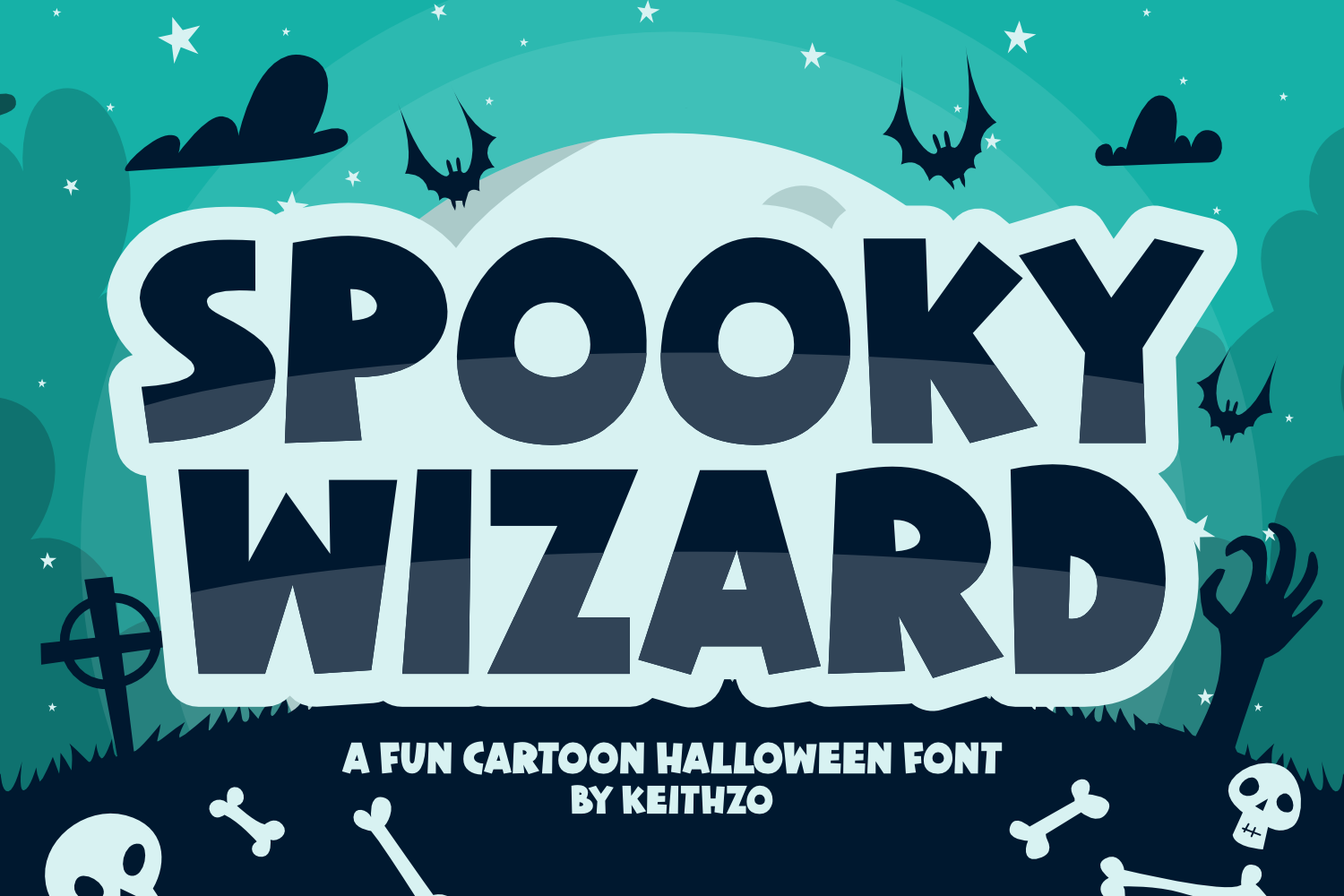
Spooky Wizard - Halloween Font
Summon the spirit of Halloween with the Spooky Wizard font! Bold and chilling yet endearingly cute, this display typeface breathes life into every Halloween craft, breathes fear into every horror movie poster, and bestows a unique, spectacular look to t-shirts and other projects. With its roots in a bygone era, Spooky Wizard lends an aura of retro cartoon while also fitting perfectly into contemporary designs. Unleash your creativity with it for Halloween invitations or any spooky-themed endeavor and watch the magic unfold!